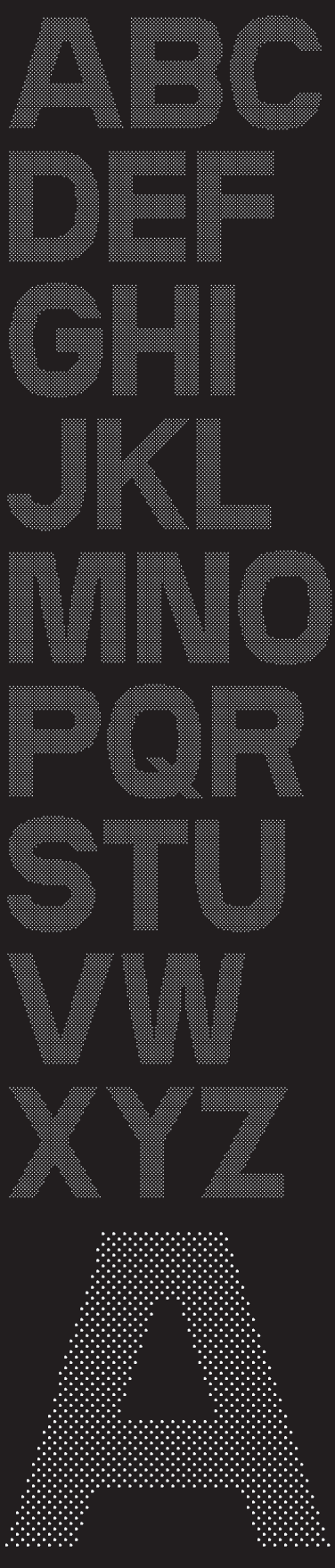
rasterman
achieve moiree effects easily
Cool font.
yeah!
this one will be very useable for super close ups in layputs!
Sooo much work...and all for such incredibly beautiful result. *clap, clap* You managed to achieve the gently curving O sides. Simply awesome!
Massive! You and I share very similar type design sensibilities. This is probably the third or fourth time I've noticed similiarities between one of my private fontstructions and your public releases. I'm awestruck.
Lovely!
Where are the numbers?